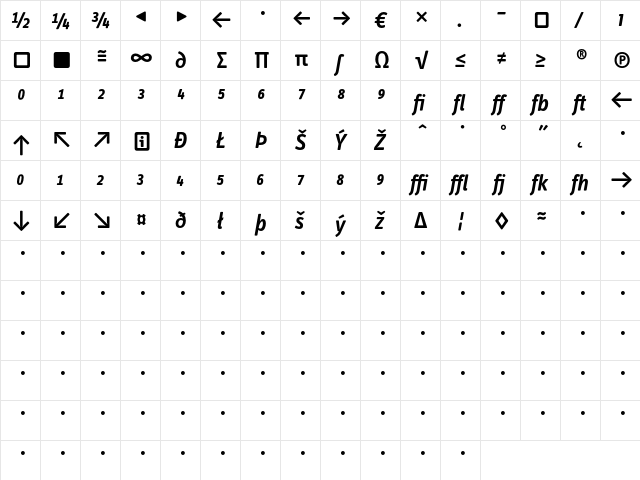
InfoDispSemibold ItalicExp Font Preview
Design Context for InfoDispSemibold Typeface
InfoDispSemibold takes a measured approach to typography — its balanced proportions and neutral character make it a reliable workhorse for both digital and print work. Its italic angle brings a sense of urgency and motion to the letterforms. The heavy weight commands attention and anchors typographic hierarchies.
Pro Tip: Use InfoDispSemibold for emphasis, pull quotes, and subheadings where its slanted energy can add rhythm to the layout.